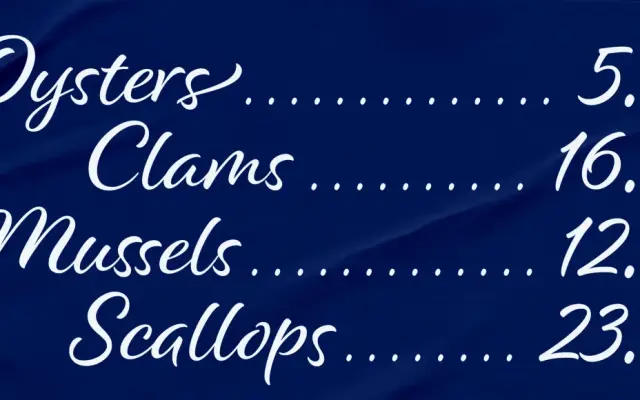
Alisha
A connected script with a generous x-height and over 200 alternates and swash forms, aimed at packaging, headlines and identity work.
Alisha draws on the character of custom hand lettering, with varied letterforms that give it a personalised quality without sacrificing legibility. More than 200 stylistic alternates, swash forms and ornaments are accessible via OpenType features, and the font is coded to work without professional design software. Coverage spans Latin Extended, supporting a broad range of European languages.
A flowing connected script with varied letterforms, generous x-height and extensive swash and alternate forms, characteristic of expressive hand-lettering styles.